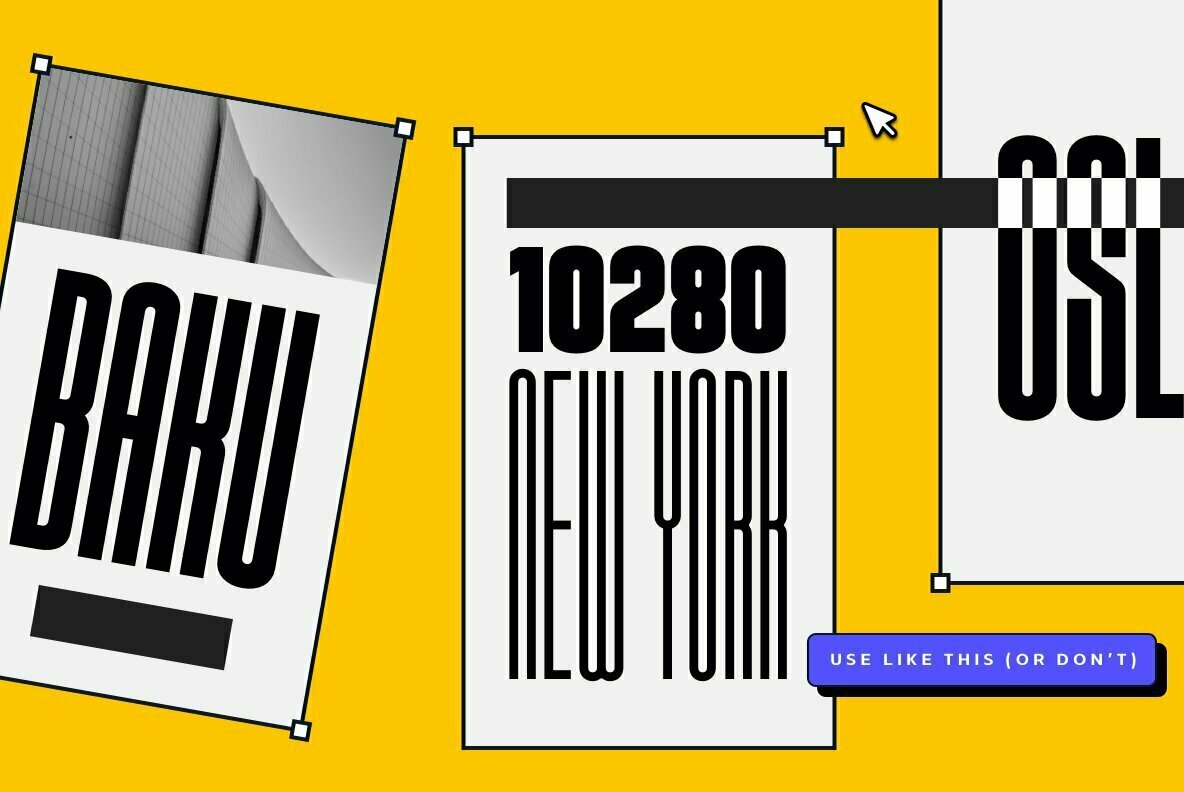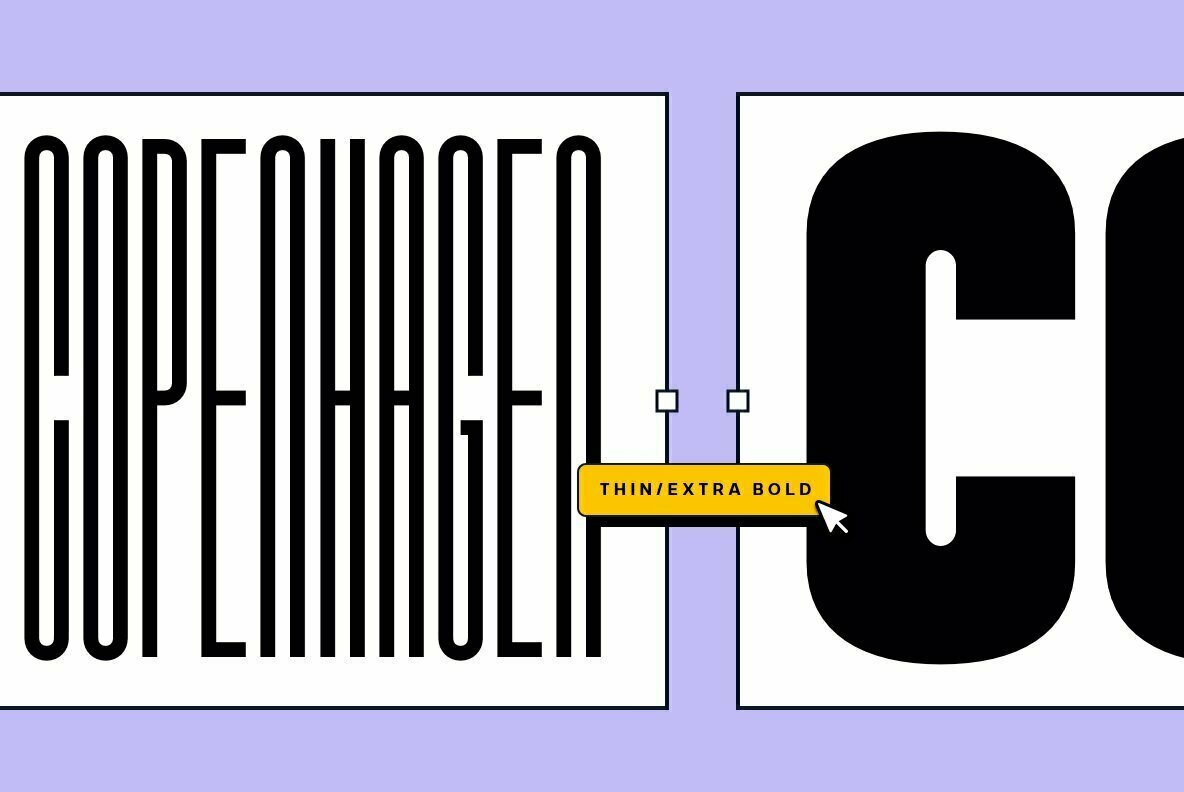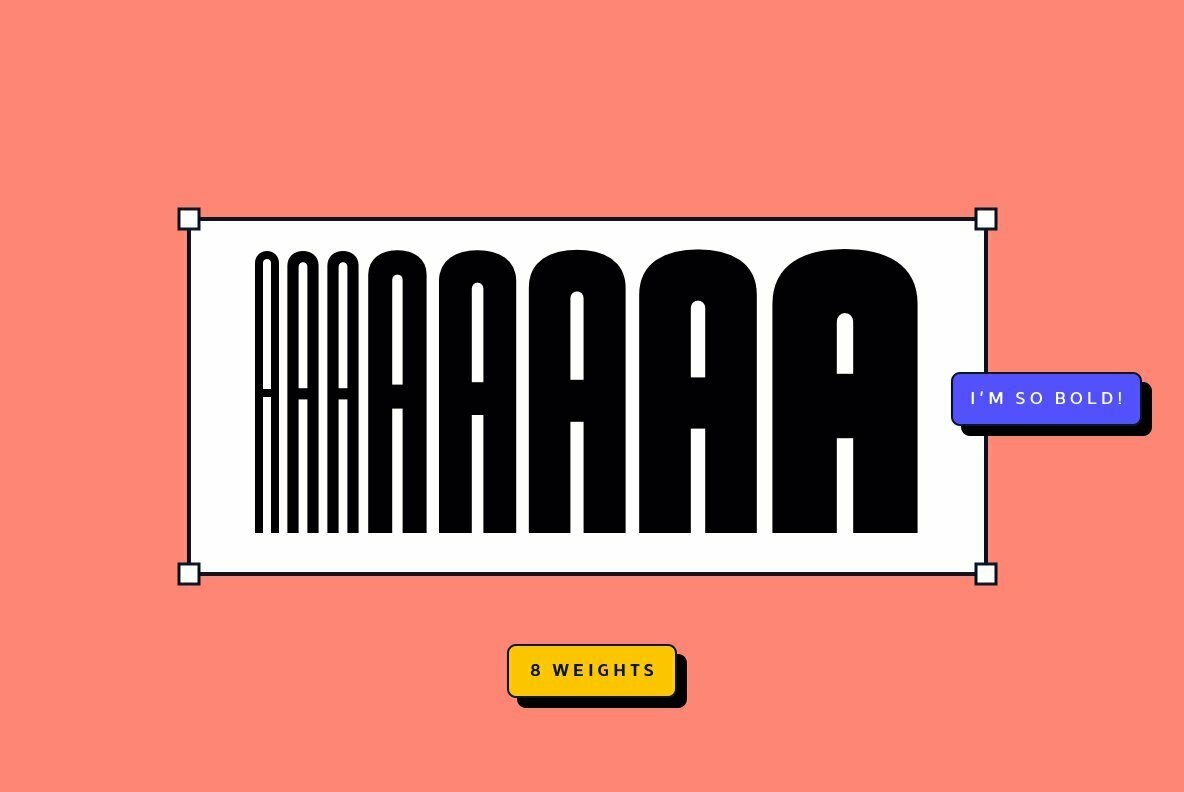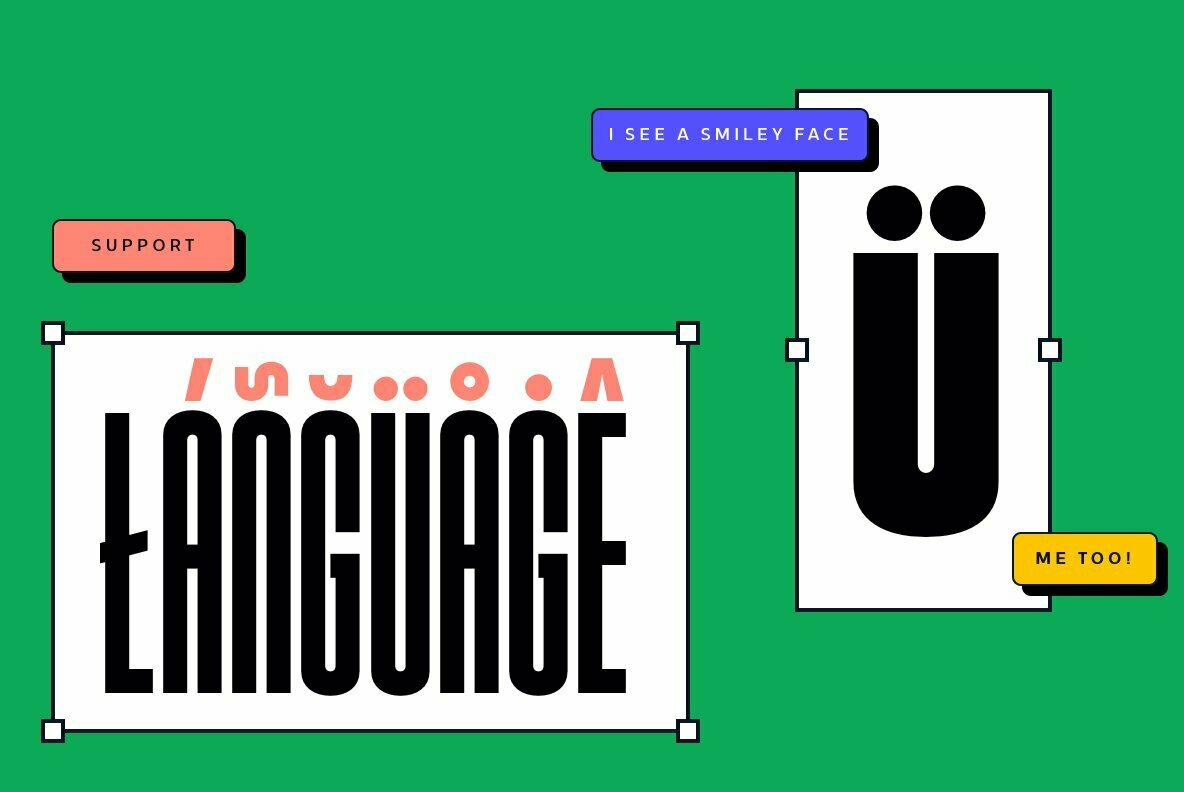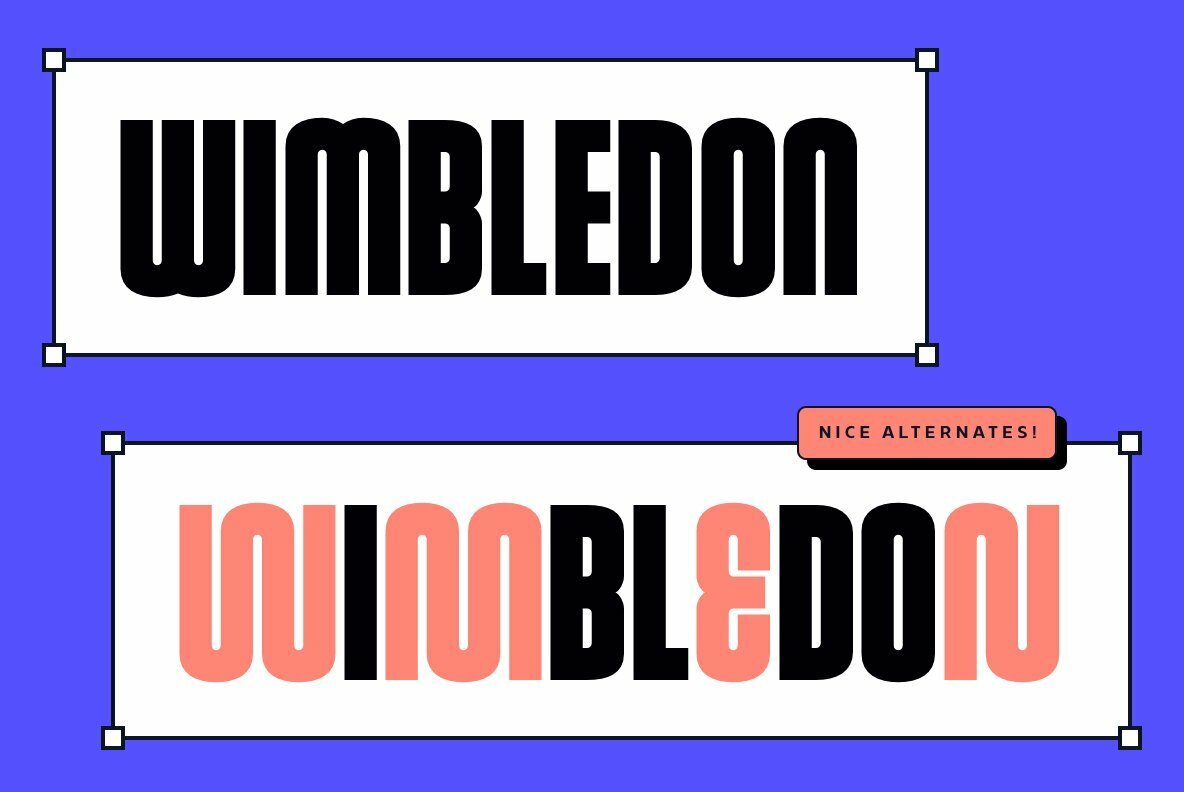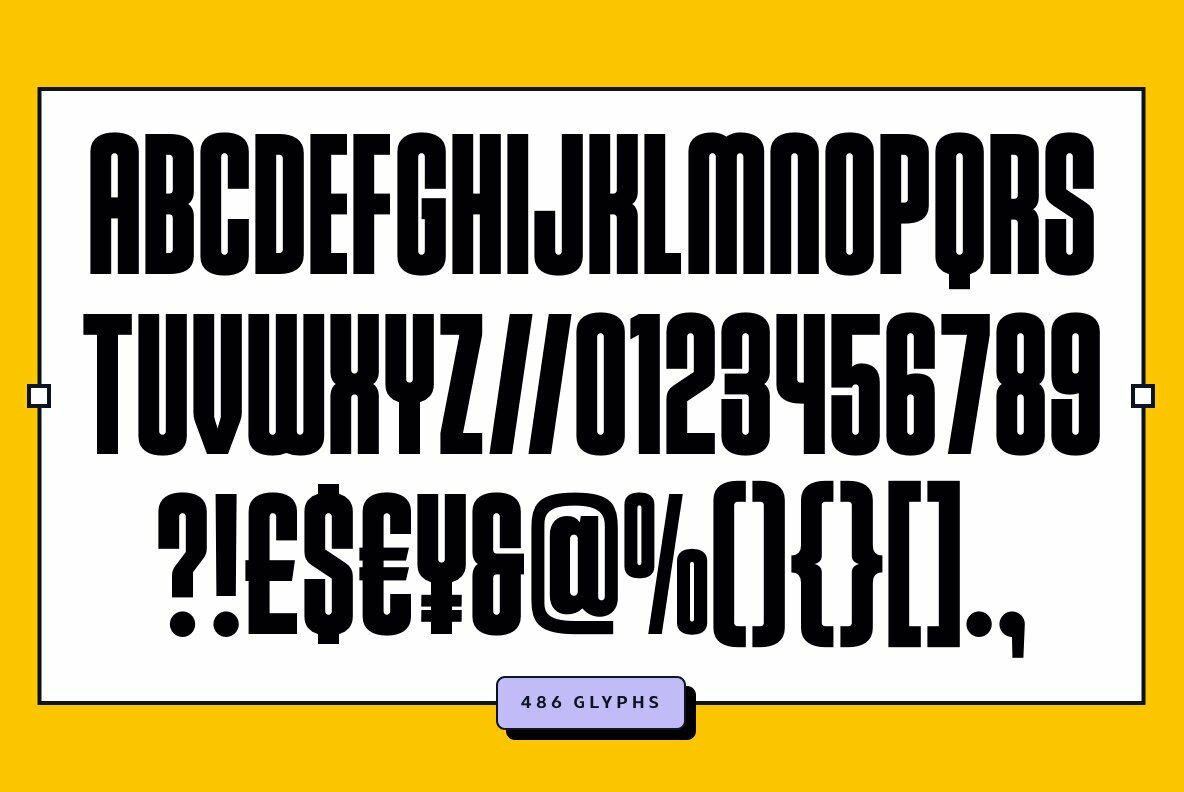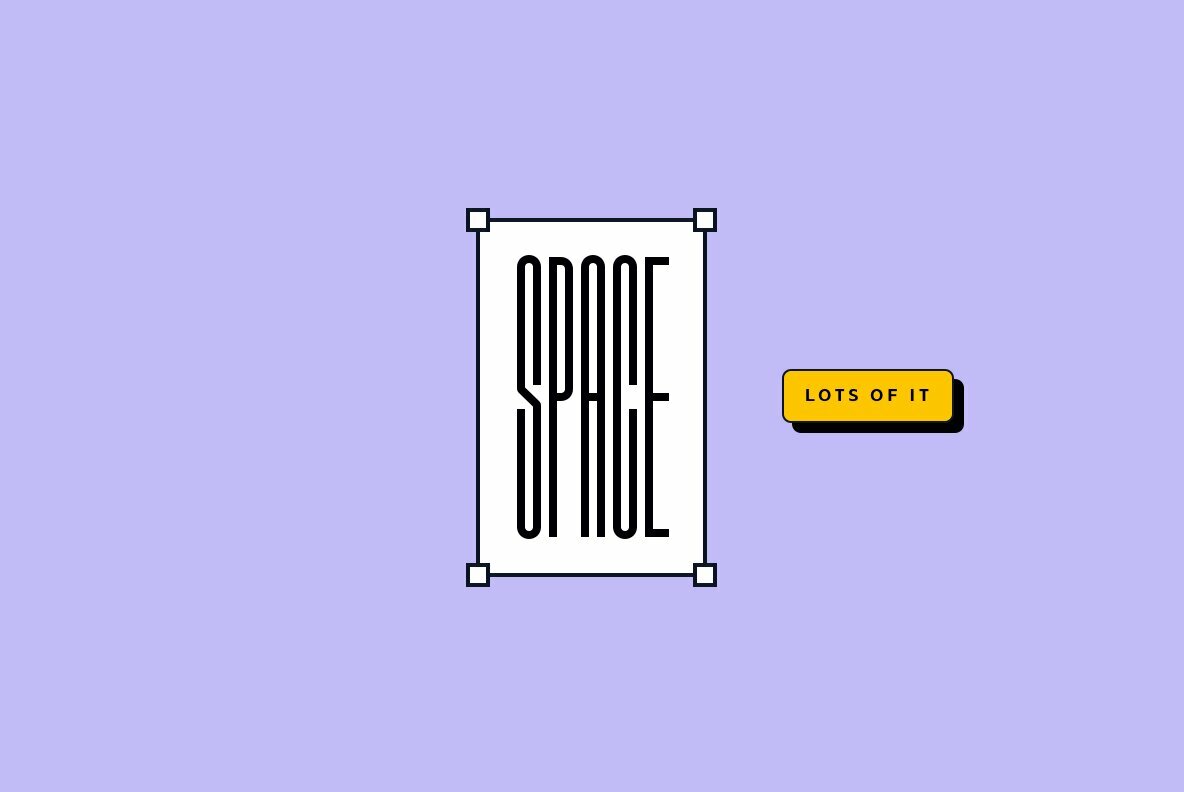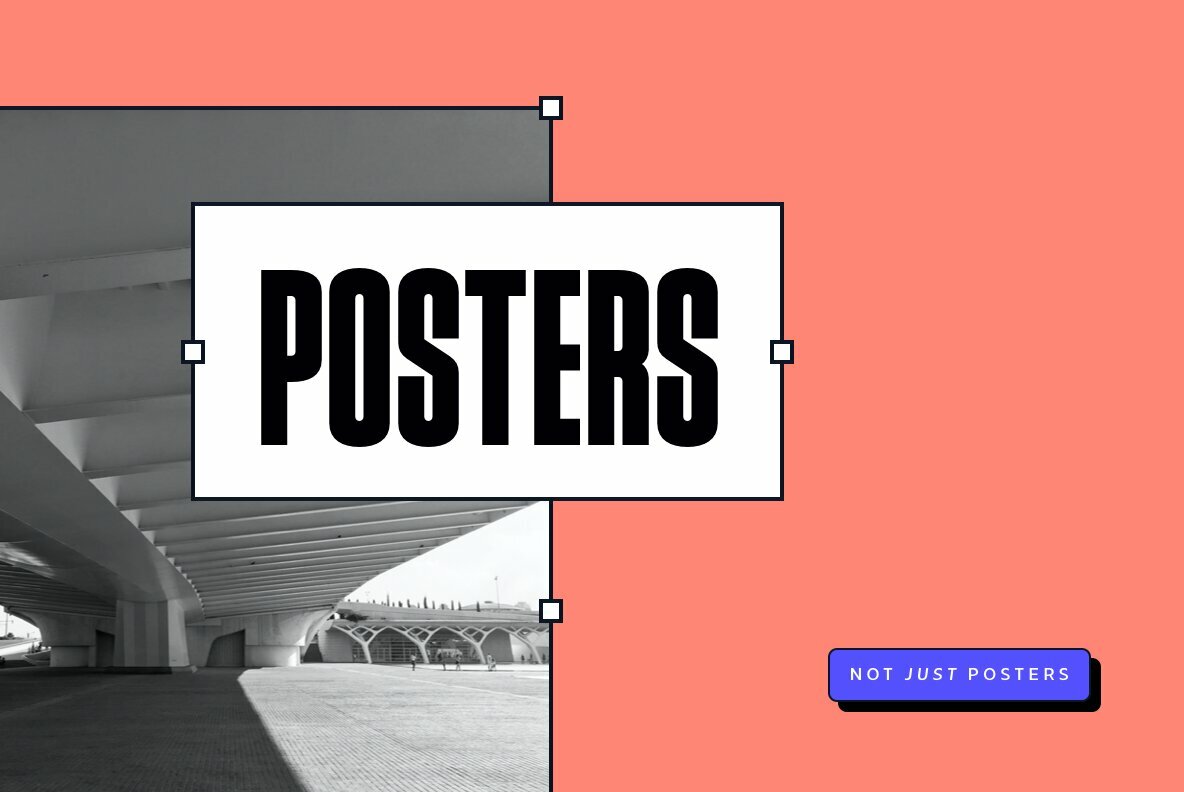
Robson Font
Robson is a fluid, condensed, uppercase font made up of eight weights, that will provide instant visual impact to your projects. The font is made up of 486 glyphs which features extensive language support & stylistic alternates to give your designs the versatility they require.
Perfect for your digital, print or branding projects. Or, for a poster on your fridge that says "You rock".